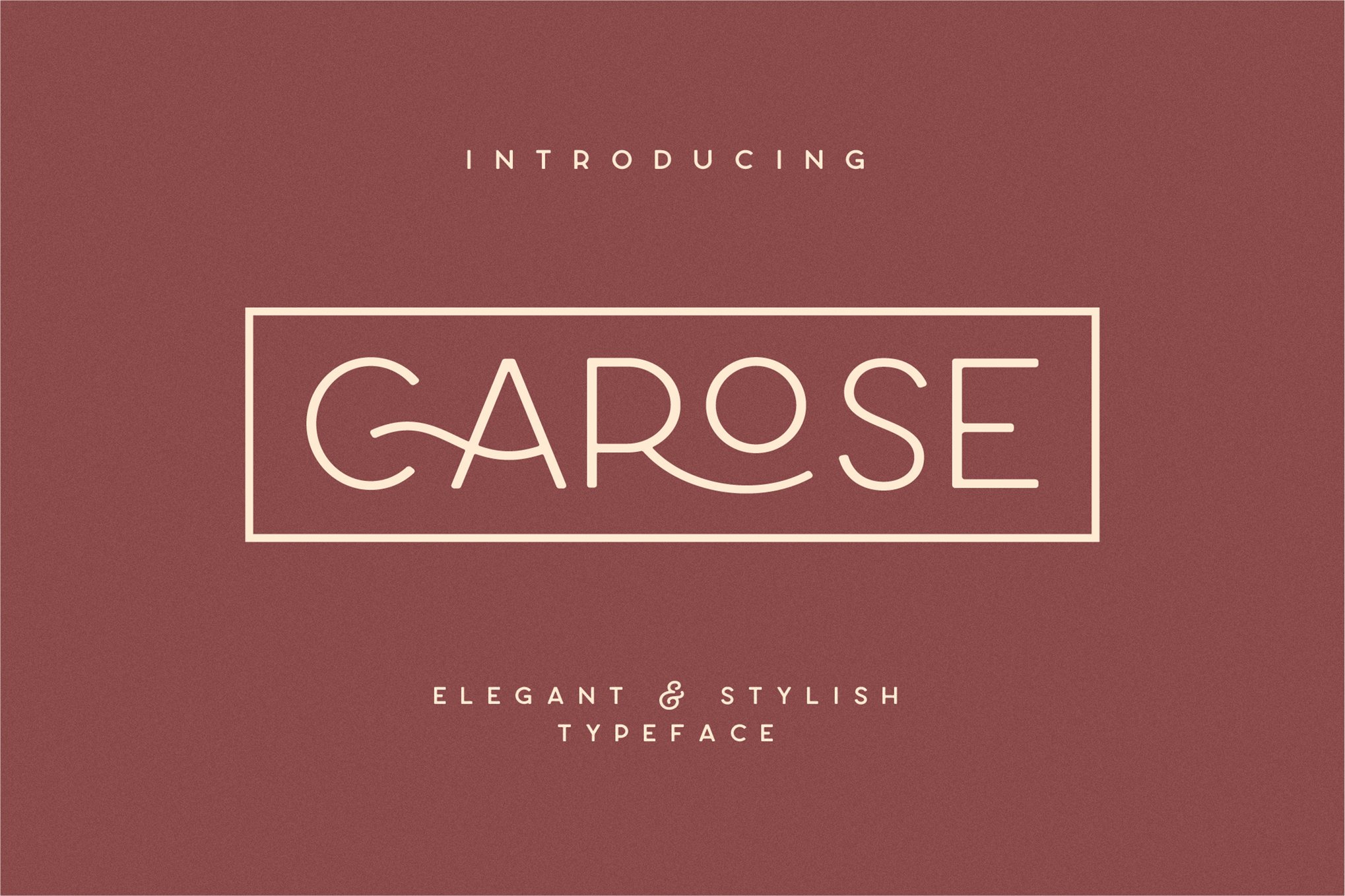
Carose Sans- 6 Elegant Typeface
Carose Sans- 6 Elegant Typeface is perfect for sophisticated branding systems, luxury retail identities, high-end fashion magazines, premium product packaging, elegant corporate communications, upscale hospitality materials, refined editorial design, exclusive event invitations, boutique hotel signage, prestigious award ceremonies, art gallery exhibitions, and cultured lifestyle publications.
What makes Carose Sans- 6 Elegant Typeface exciting is its comprehensive elegance that provides designers with six distinct yet harmonious styles, each capturing different facets of sophisticated communication through refined letterforms. This remarkable typeface collection embodies versatility within elegance, combining multiple weights and styles that work together seamlessly to create sophisticated visual hierarchies and comprehensive brand systems. The font's systematic approach to elegance ensures consistent luxury appeal across diverse applications while providing the flexibility needed for complex design projects. Its coordinated family structure makes it perfect for brands requiring multiple typographic voices that maintain unified sophistication and premium positioning.
The Carose Sans- 6 Elegant Typeface family includes six carefully coordinated styles featuring light, regular, medium, bold, condensed, and extended variations. The comprehensive collection incorporates elegant alternates, refined ligatures, and sophisticated stylistic elements that enhance the family's luxury character and provide designers with complete typographic solutions for premium brand systems.
Whether you're developing comprehensive luxury brand identities, creating sophisticated marketing campaigns, or designing elegant editorial systems, Carose Sans- 6 Elegant Typeface Free Download delivers the systematic elegance your premium projects require. This exceptional typeface collection excels in applications where typographic versatility and consistent sophistication are crucial for brand coherence and market differentiation. The font family's elegant qualities work magnificently across digital platforms and luxury print applications, making it an invaluable asset for designers creating comprehensive brand experiences for affluent audiences. Luxury brands and prestigious design agencies choose this typeface family for its ability to provide complete typographic solutions while maintaining unwavering elegance and professional excellence. The extensive character sets support multiple languages and include specialized luxury symbols, expanding the family's versatility for international premium applications and multilingual sophisticated communications. Professional designers appreciate the systematic approach to elegance and consistent performance across all six styles and applications. When you implement this exceptional typeface collection in your luxury communications, you're selecting a complete typography system that celebrates refined taste and systematic design thinking, ensuring your brand maintains consistent elegance while providing the flexibility essential for success in competitive luxury markets and sophisticated industries that demand both versatility and unwavering quality standards.